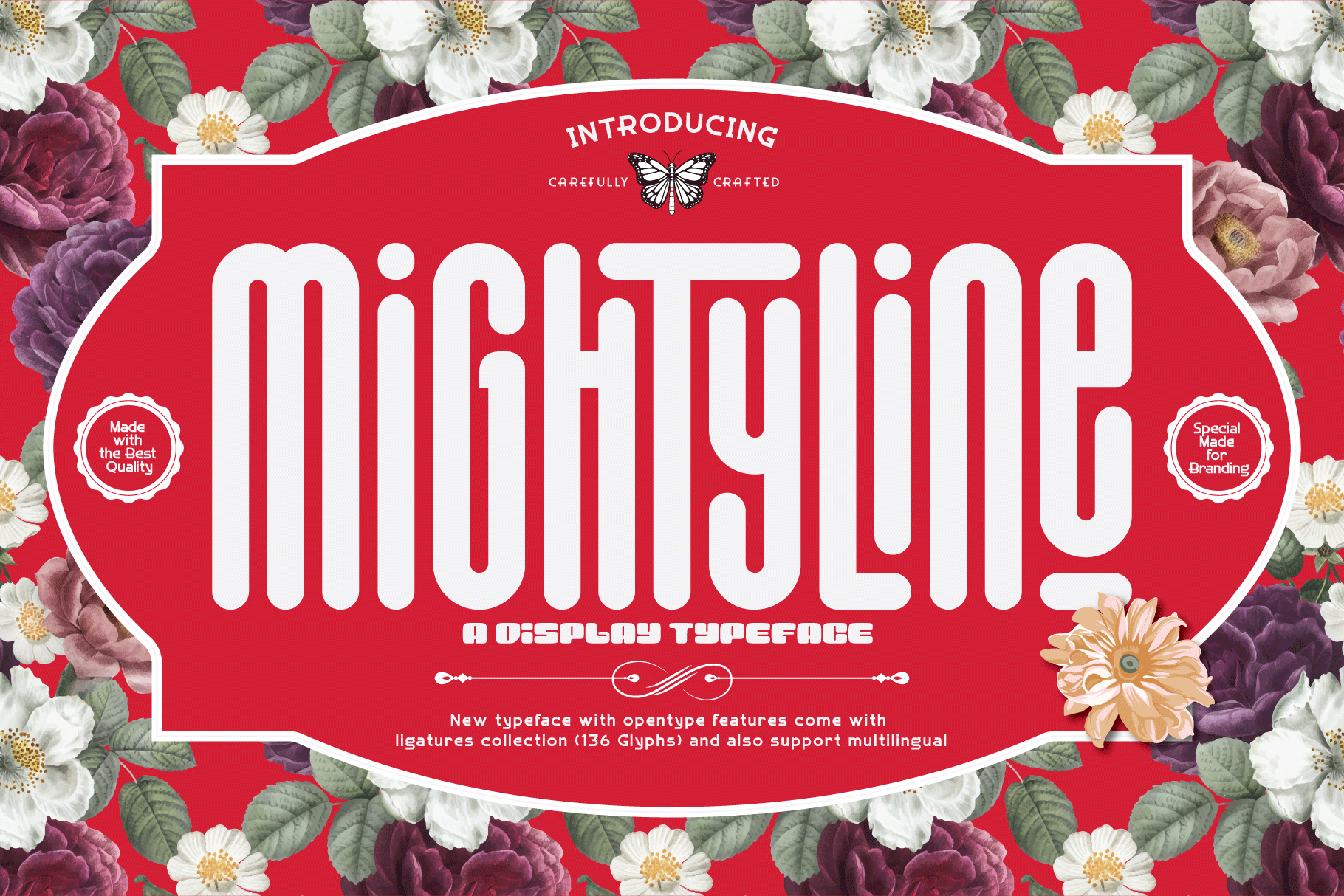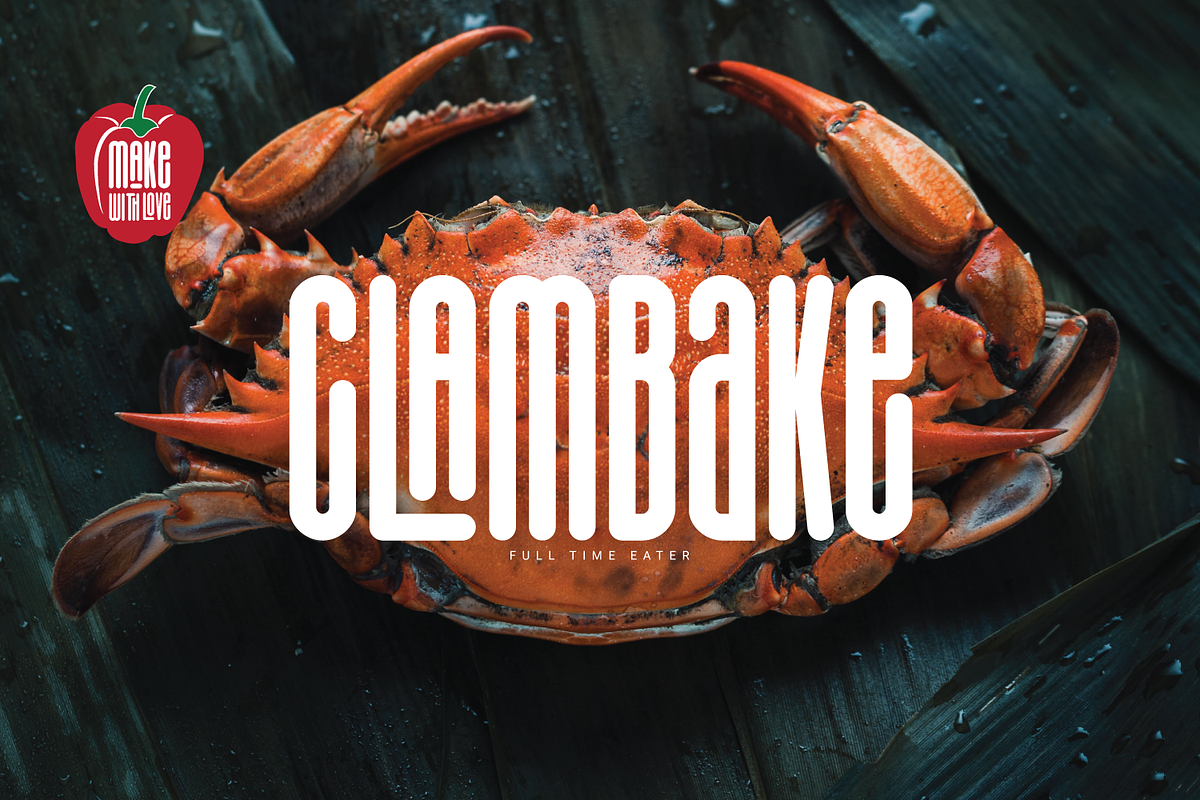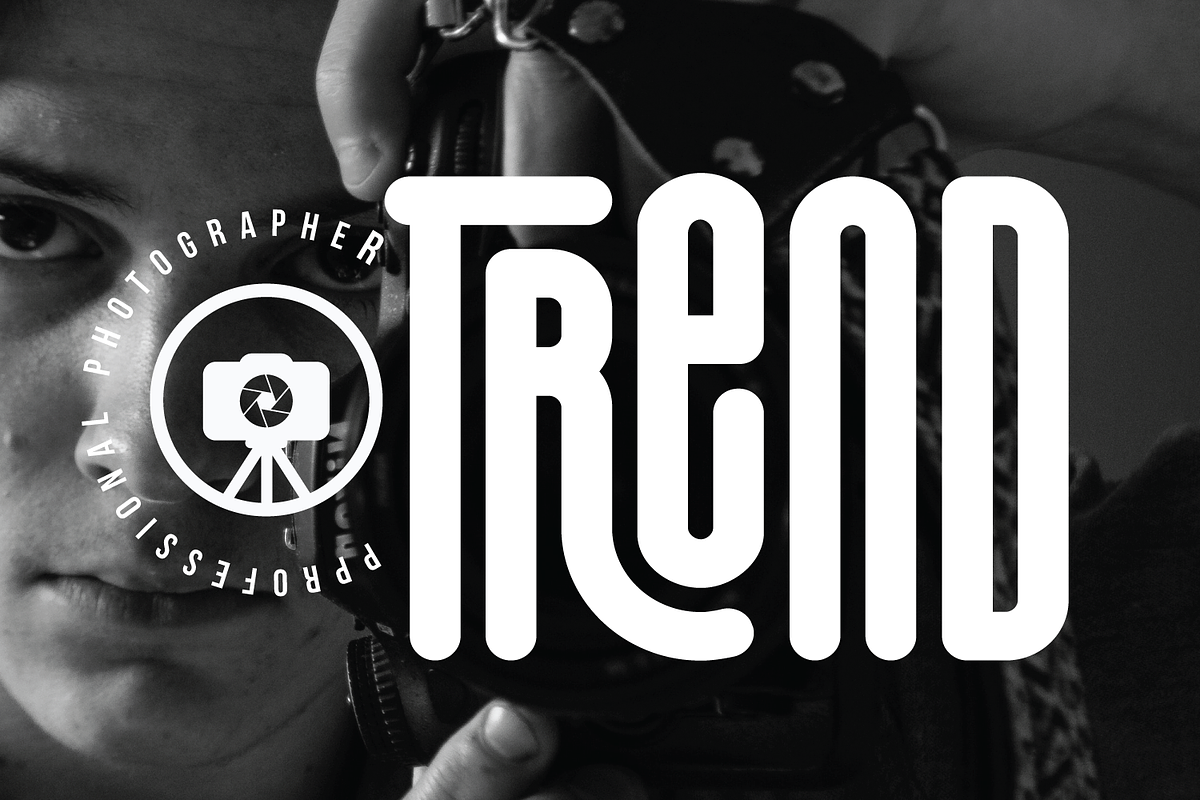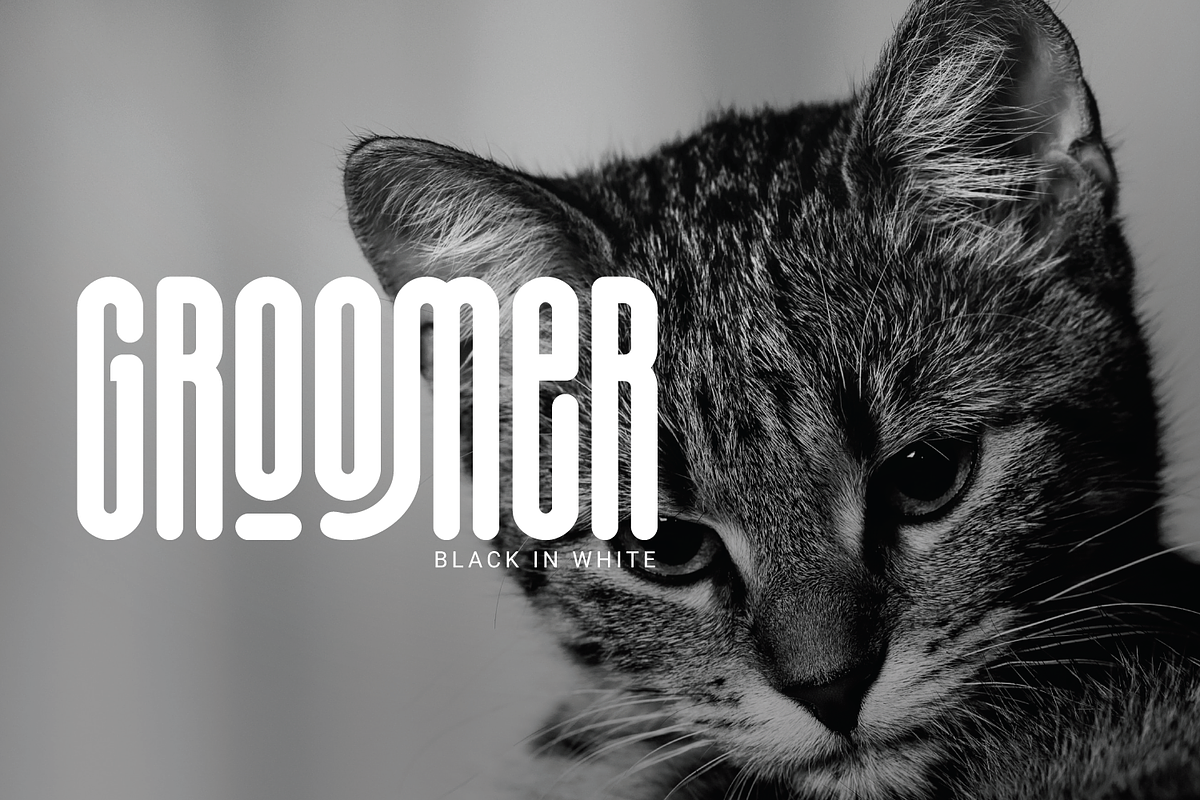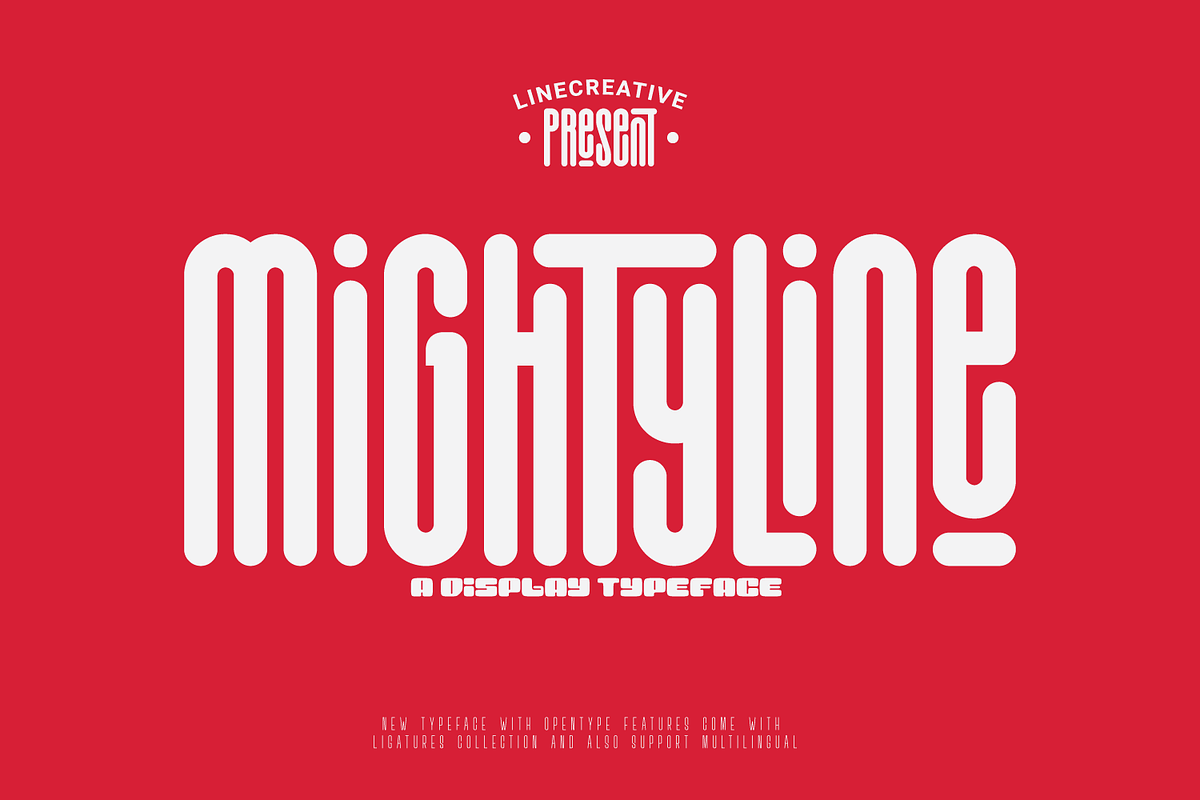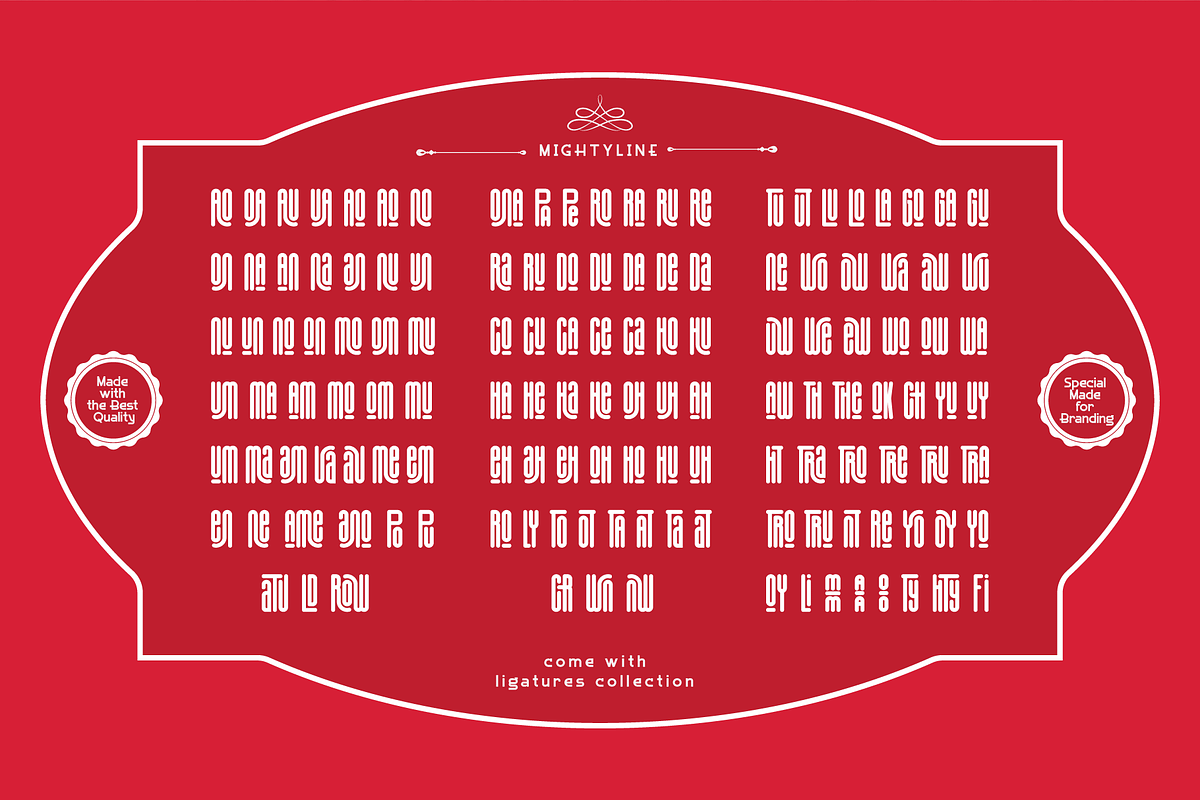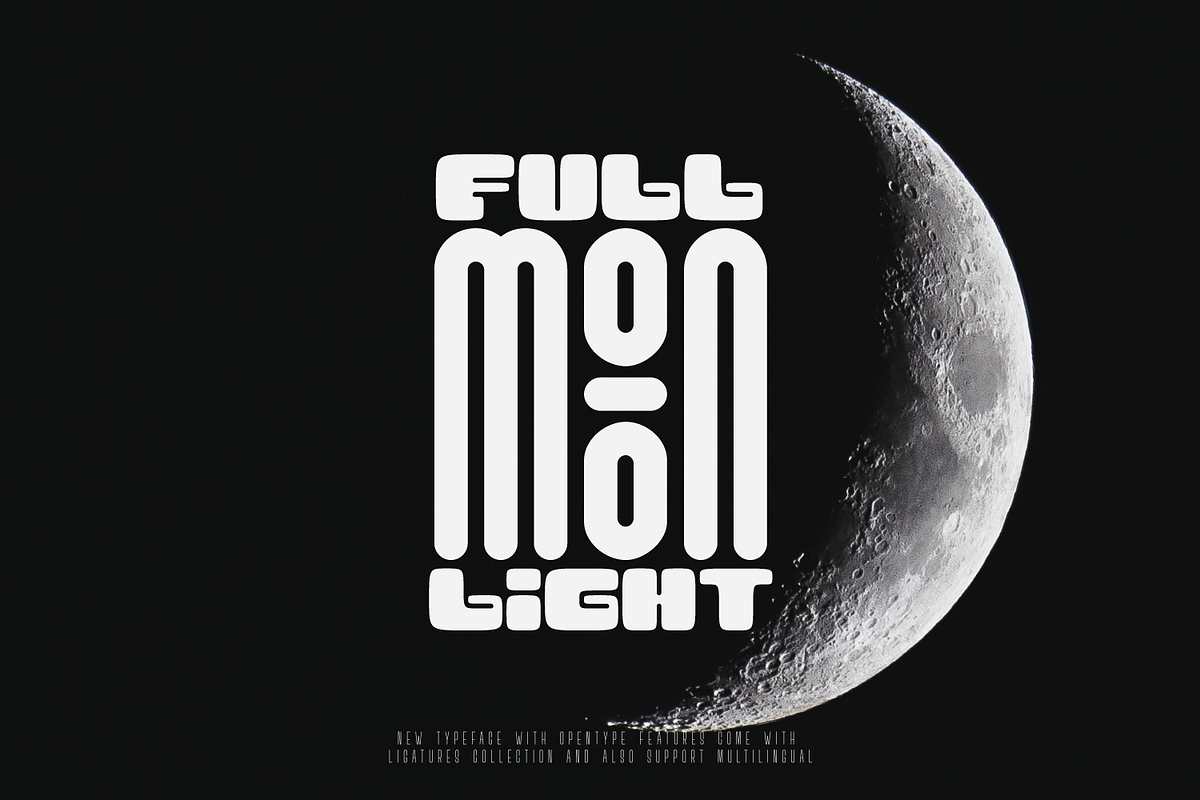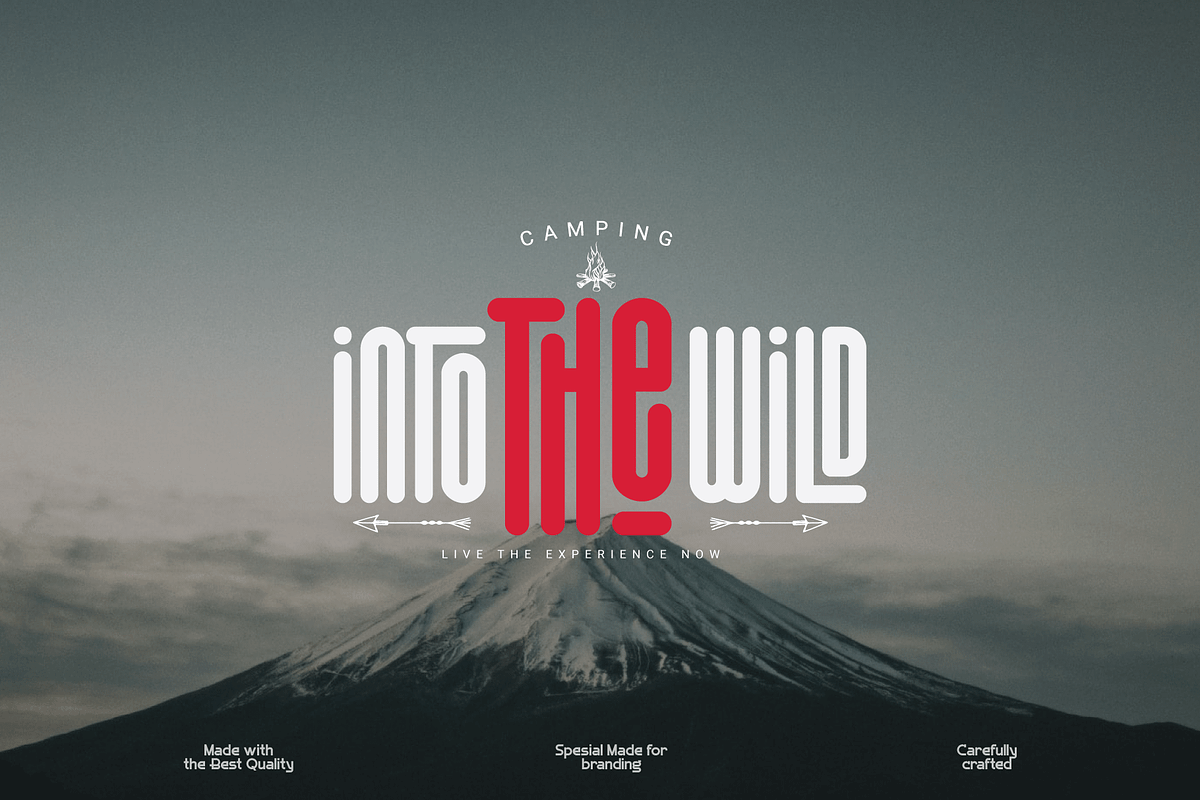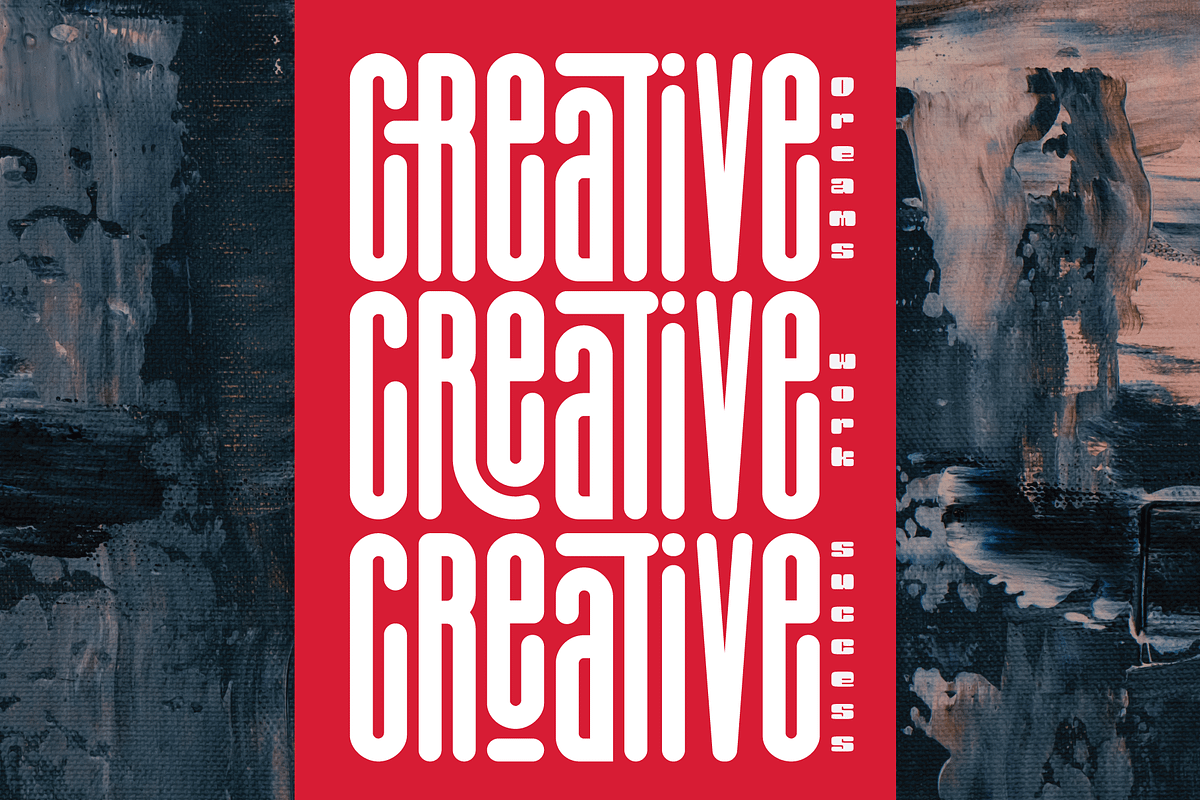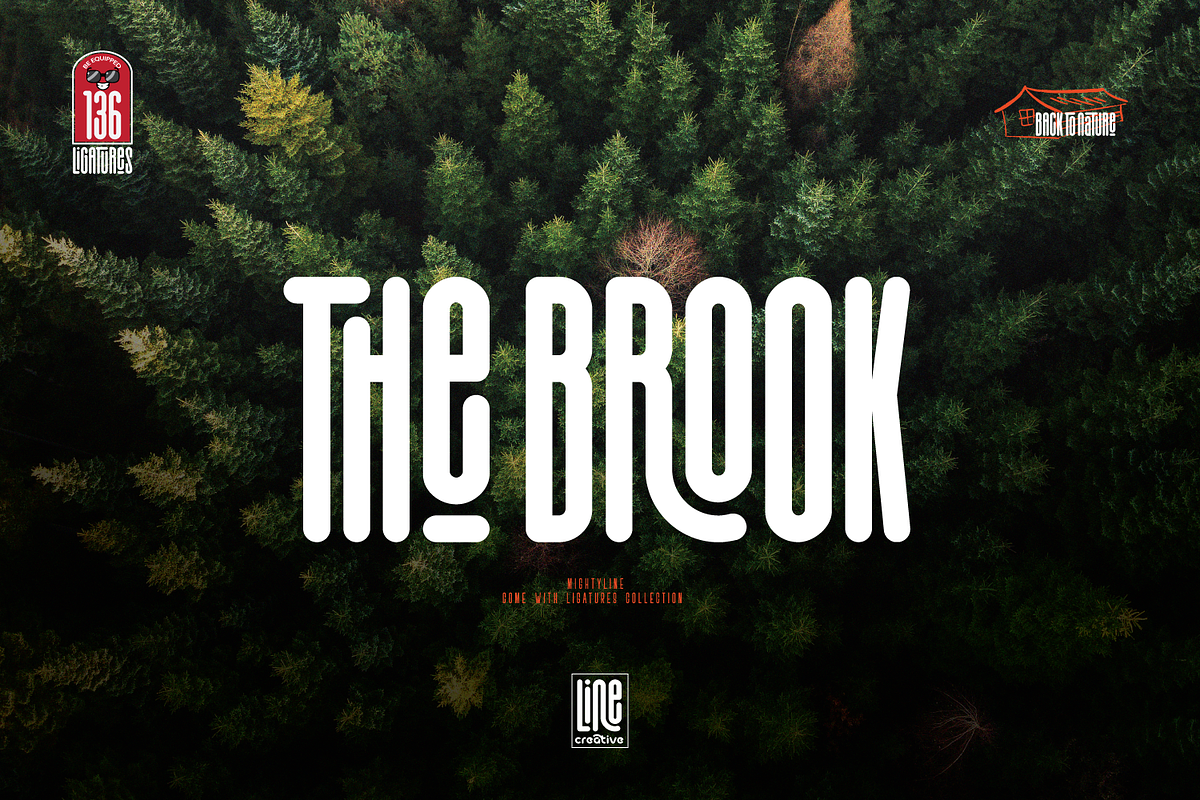
Mightyline - Ultra Condensed Font
Mightyline- Ultra Condensed font and Come with ligatures collection, It's Perfect for logo, name card, magazin layout,headers, or large scale artwork.